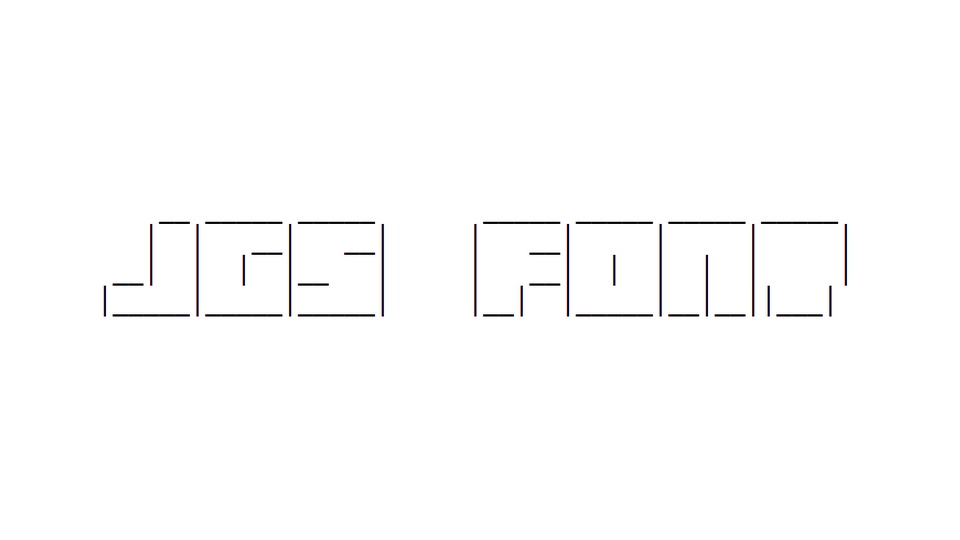
Download Jgs font, a pixel typeface made in tribute to Joan G. Stark (aka jgs, Spunk), a pioneer of ASCII art. Jgs font glyphs can be combined from one character to another, from one line to another. Thus from single characters it is possible to draw continuous lines, frames and patterns.
Designer: Adel Faure